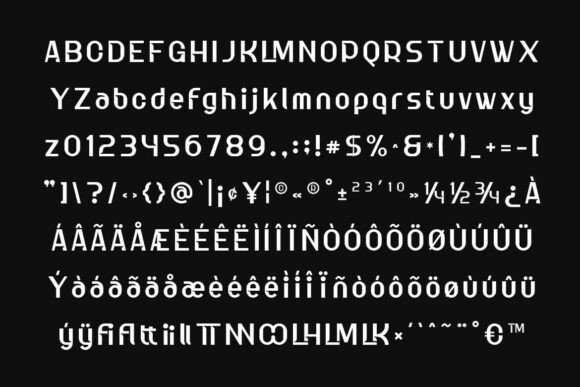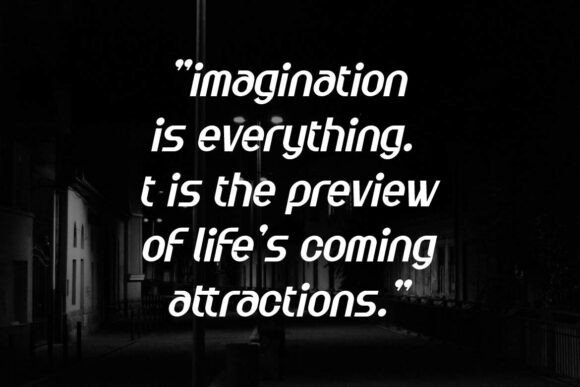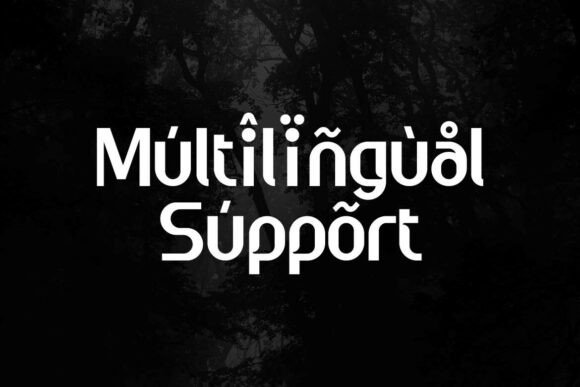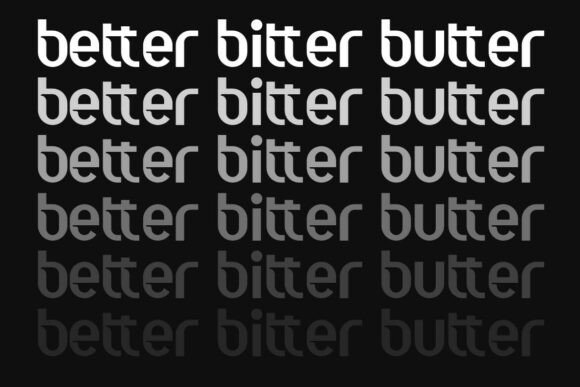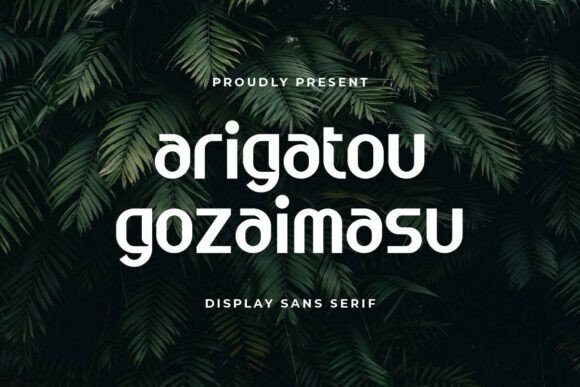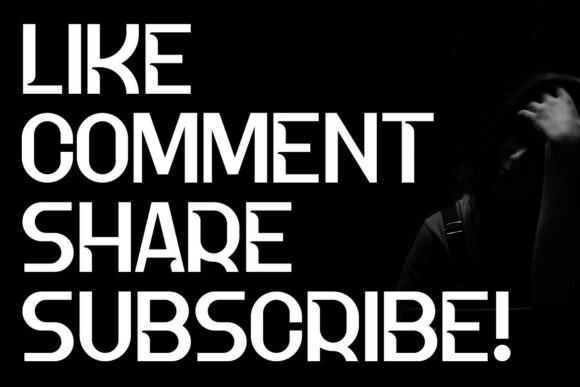
Introduction to Golke Font
Have you ever found yourself staring at a blank design canvas, eager to bring a unique idea to life? The spark of creativity is often elusive, but sometimes it’s just a matter of having the right tools. For designers seeking to add a dash of personality to their creative projects, the Golke Font offers a compelling solution.
As a striking display sans serif font, Golke is designed to make a statement. With its sharp angles, modern proportions, and distinctive letterform style, this font is perfect for branding, headlines, posters, and editorial layouts that demand attention. Whether you’re working on a high-quality design resource or a digital content project, Golke Font is a valuable addition to your toolkit.
Key Features of Golke Font
- Unique, high-quality design ideal for creative projects and design resources
- Supports a wide range of languages, including Latin, Cyrillic, and Greek alphabets
Honest Review: Golke Font
I recently had the chance to work with the Golke Font, and I’m excited to share my thoughts with you. As a designer, I’m always on the lookout for high-quality design resources to elevate my creative projects. The Golke Font is a great addition to any design library.
- Unique and stylish design aesthetic
- Excellent legibility, making it perfect for body text and headings
- Works well on both light and dark backgrounds, including transparent backgrounds
- Not ideal for use as a display font, due to its relatively simple design
- May not be suitable for projects that require a lot of bold, attention-grabbing typography
Overall, I’m really impressed with the Golke Font. It’s a solid choice for any design project, and its high quality is evident in its crisp lines and clean design. With its free download and versatile design, it’s a great resource to have in your design arsenal.
Golke Font is a high-quality design resource available for free download, offering a unique and versatile font perfect for creative projects. With its transparent background, Golke Font provides an ideal solution for designers looking to add a touch of elegance to their work.
Use Golke Font in combination with other design elements to create a cohesive and visually appealing design. Experiment with different font sizes and colors to add depth and interest to your work.
Golke Font is ideal for use in creative projects such as brochures, flyers, business cards, and social media graphics. Its high-quality design and transparent background make it perfect for use in a variety of design applications.